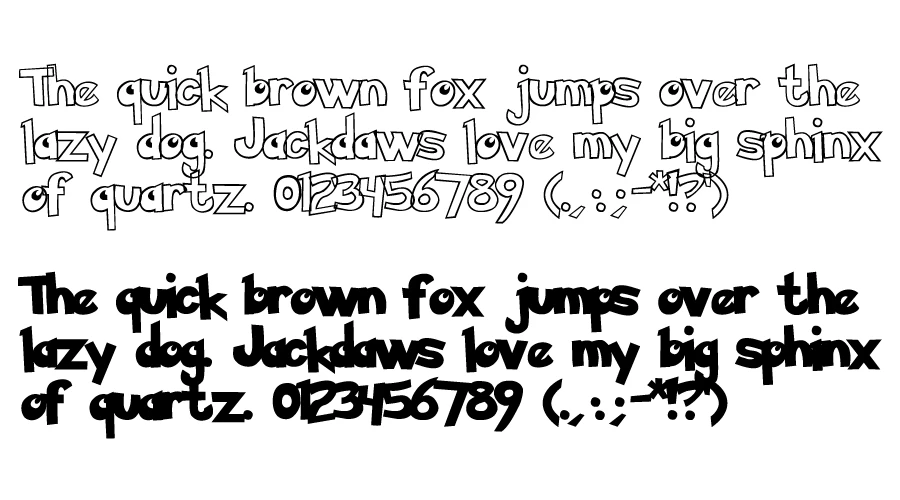
Pokemon is a Japanese media franchise which also known as Pocket Monsters (A video game developed by Game Freak and published by Nintendo in 1996). Films, books, trading cards, etc. have been released with this game only for its popularity. The font used in the logo of pokemon is a custom-designed font.
Pokemon font is a Fancy animated film font. Neale Davidson designed this awesome font using comic lettering. There are two styles available of this font (Pokemon Hollow and Pokemon Solid). Toy story font has a similar look to Pokemon.
| Name | Pokemon Font |
| Style | Fancy, Animated film font |
| Author | Neale Davidson |
| Type | Hollow and Solid |
What type of font is Pokemon?
Ans: Pokemon font is a Fancy animated film font with 2 styles.
Is there any font similar to Pokemon in Google Fonts?
Ans: Yes, It has. The closest alternative in Google fonts to Pokemon is Miltonian.